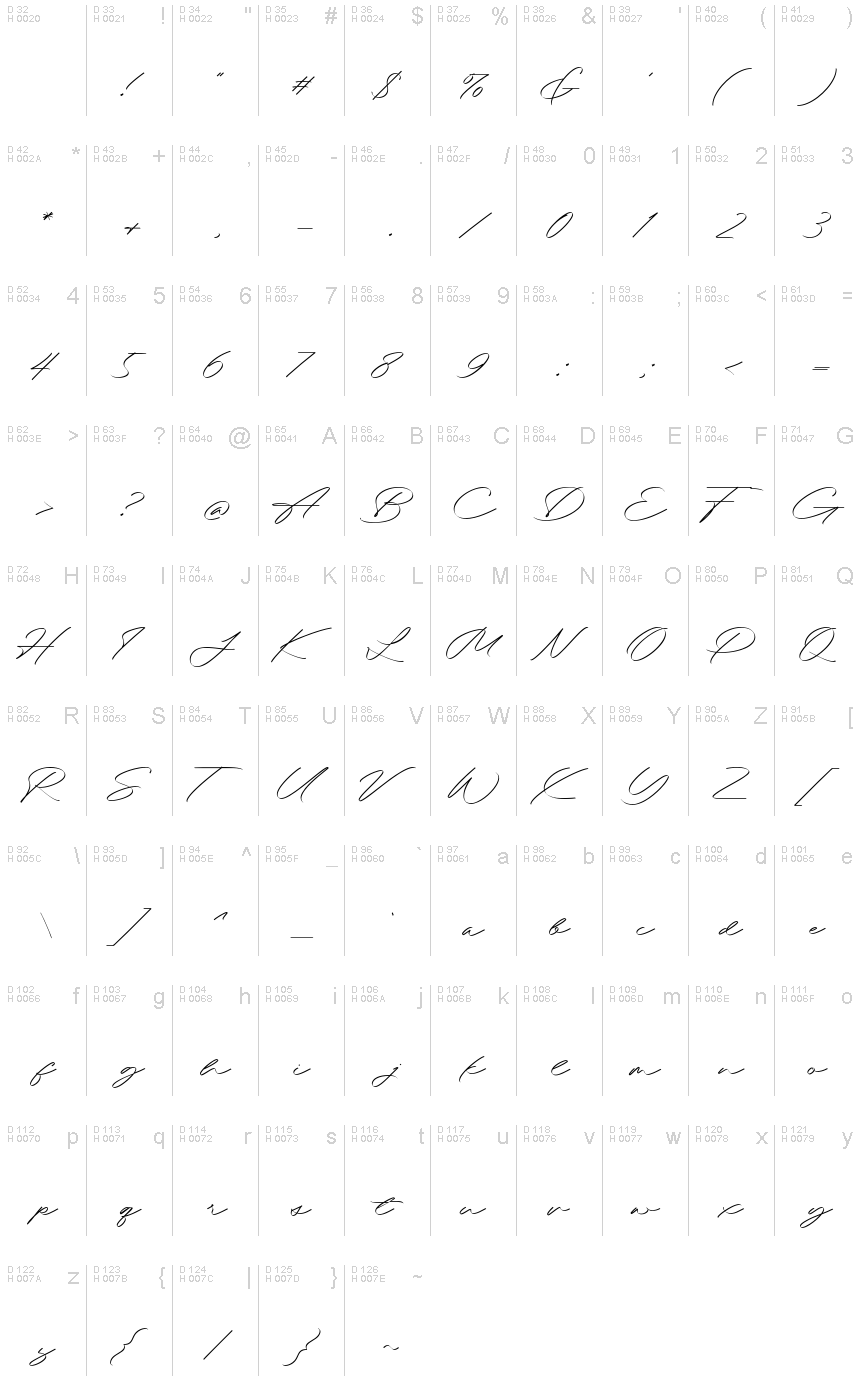
Brigend Signature
Brigend Signature, crafted by designer Lemonthe, exudes a captivating handwritten elegance with its light, fluid strokes. This signature-inspired font radiates a sense of warmth and personal charm, lending an inviting touch to any project. Its organic, expressive lines evoke the natural flow of the human hand, infusing designs with a genuine, heartfelt aesthetic.
Brigend Signature's versatility makes it an ideal choice for a wide range of applications, from elegant wedding invitations and personalized stationery to charming product packaging and captivating social media content. Its distinctive personality easily adapts to both formal and informal contexts, seamlessly blending sophistication and approachability.